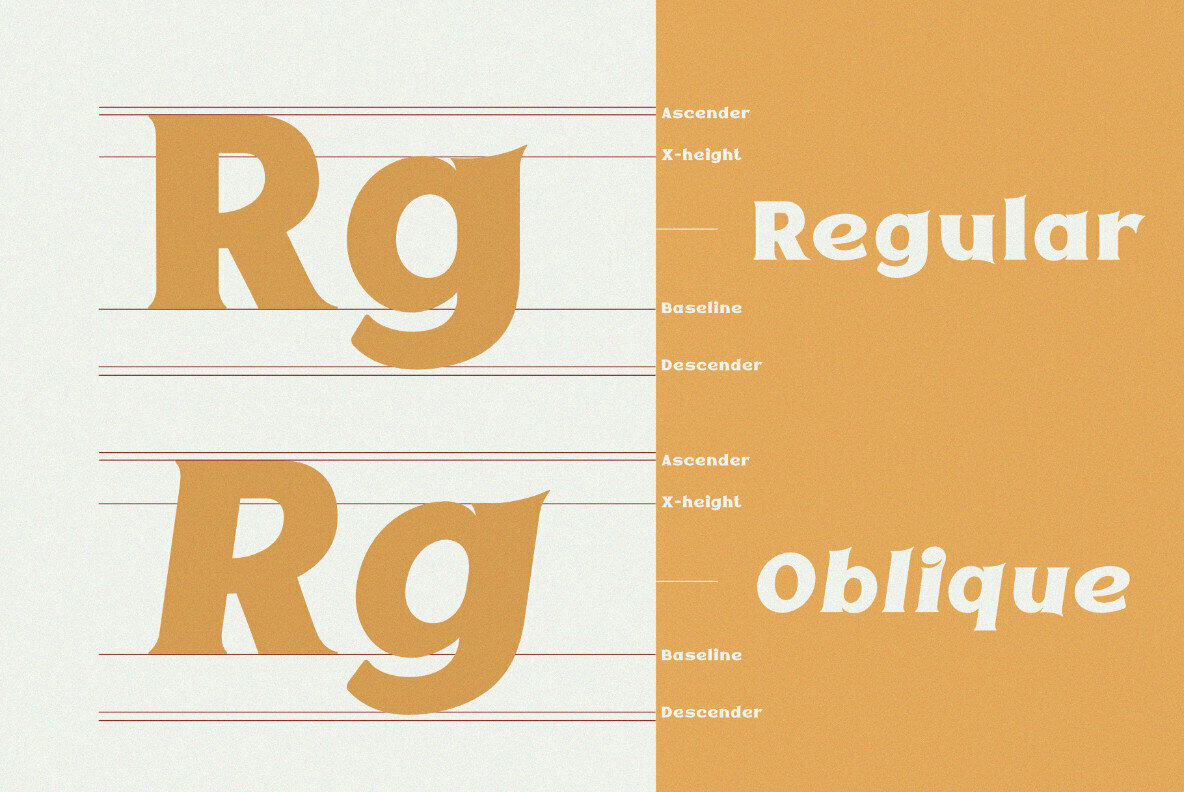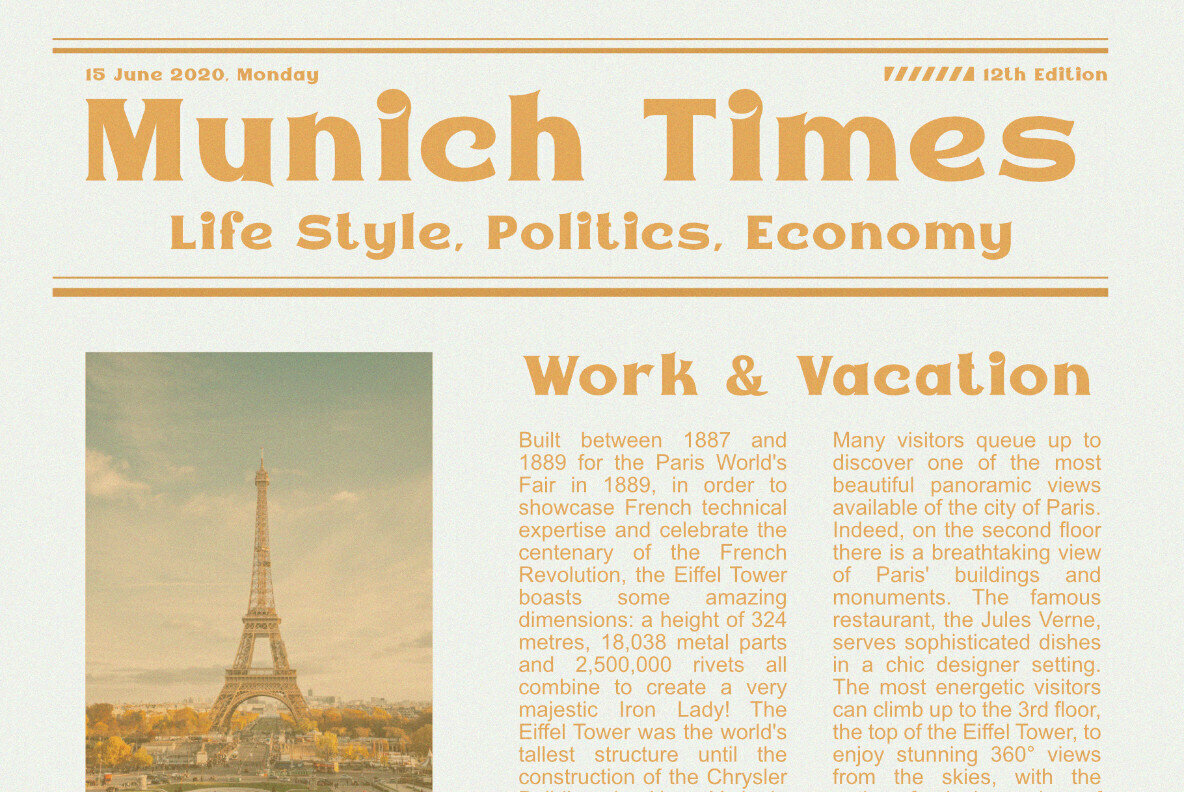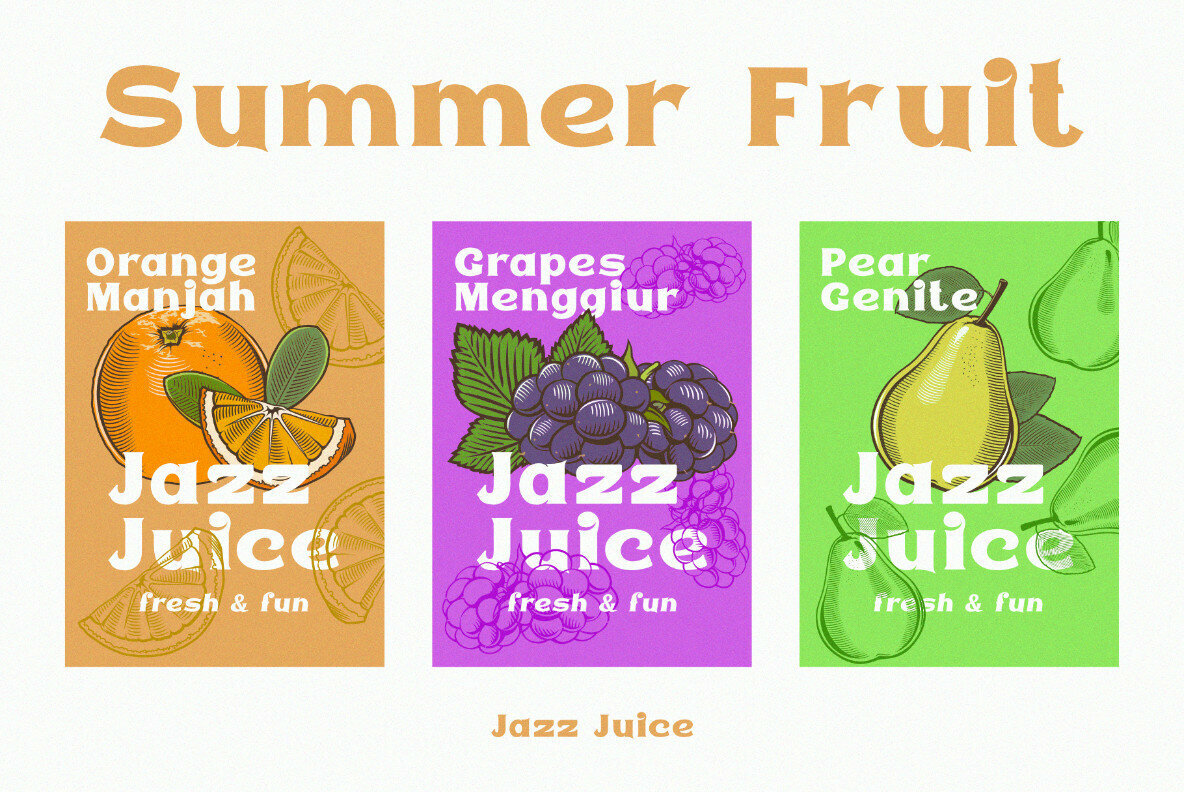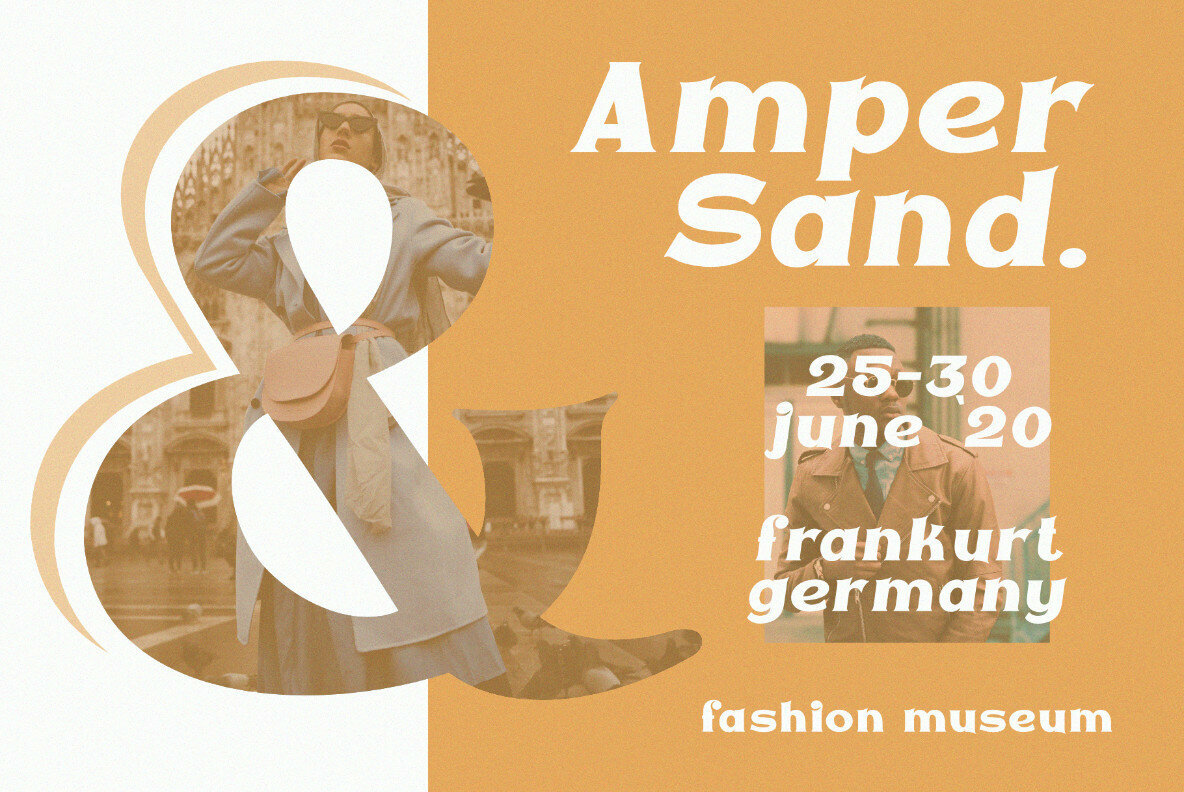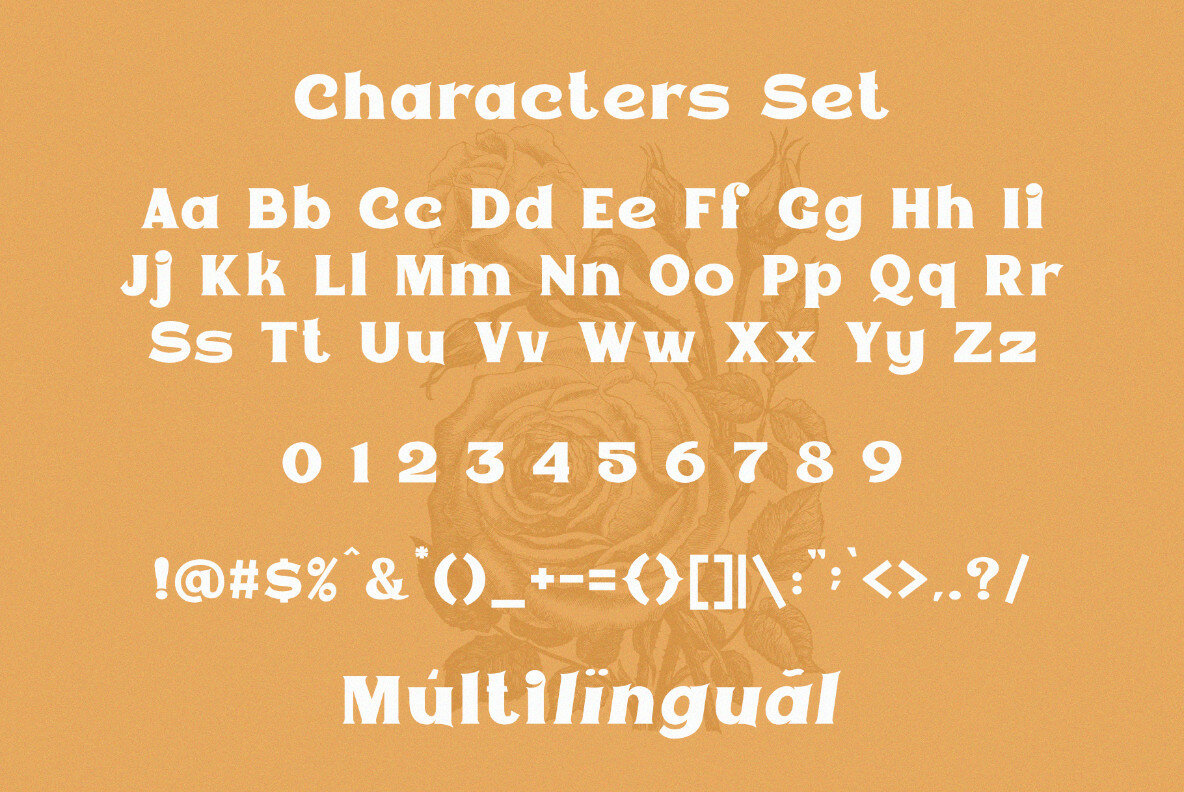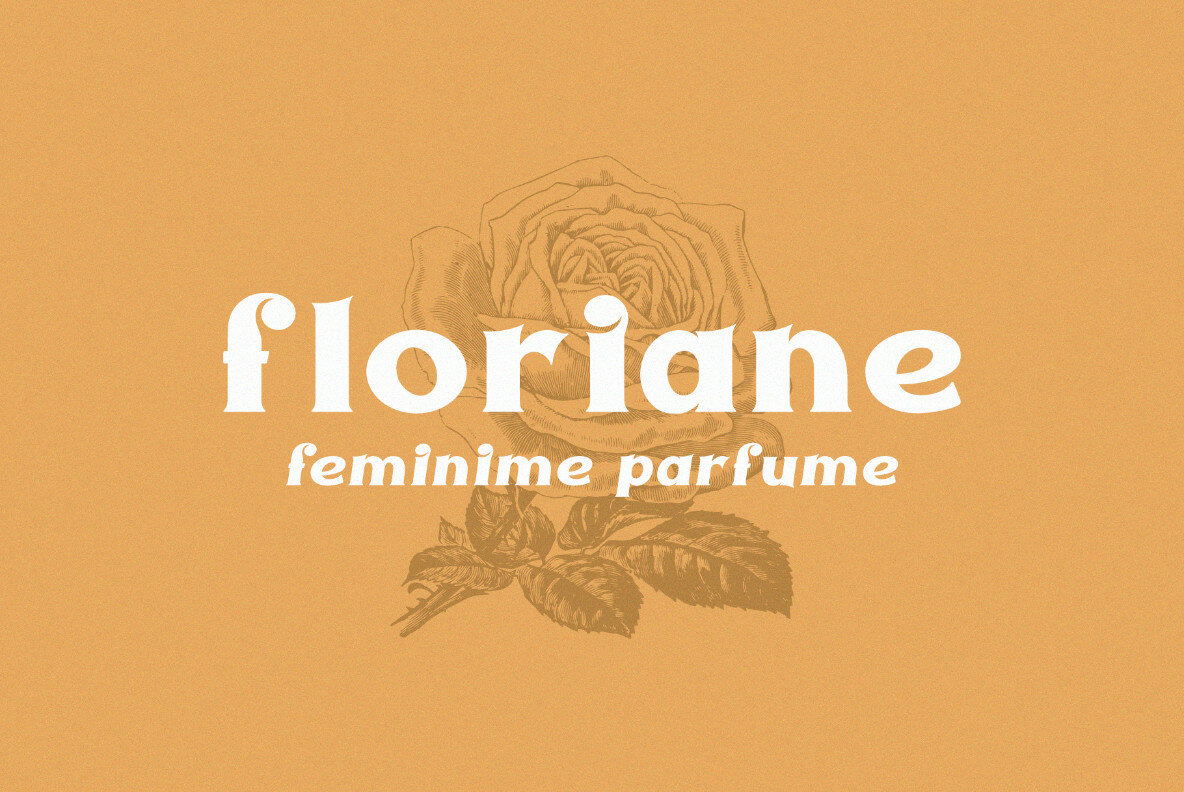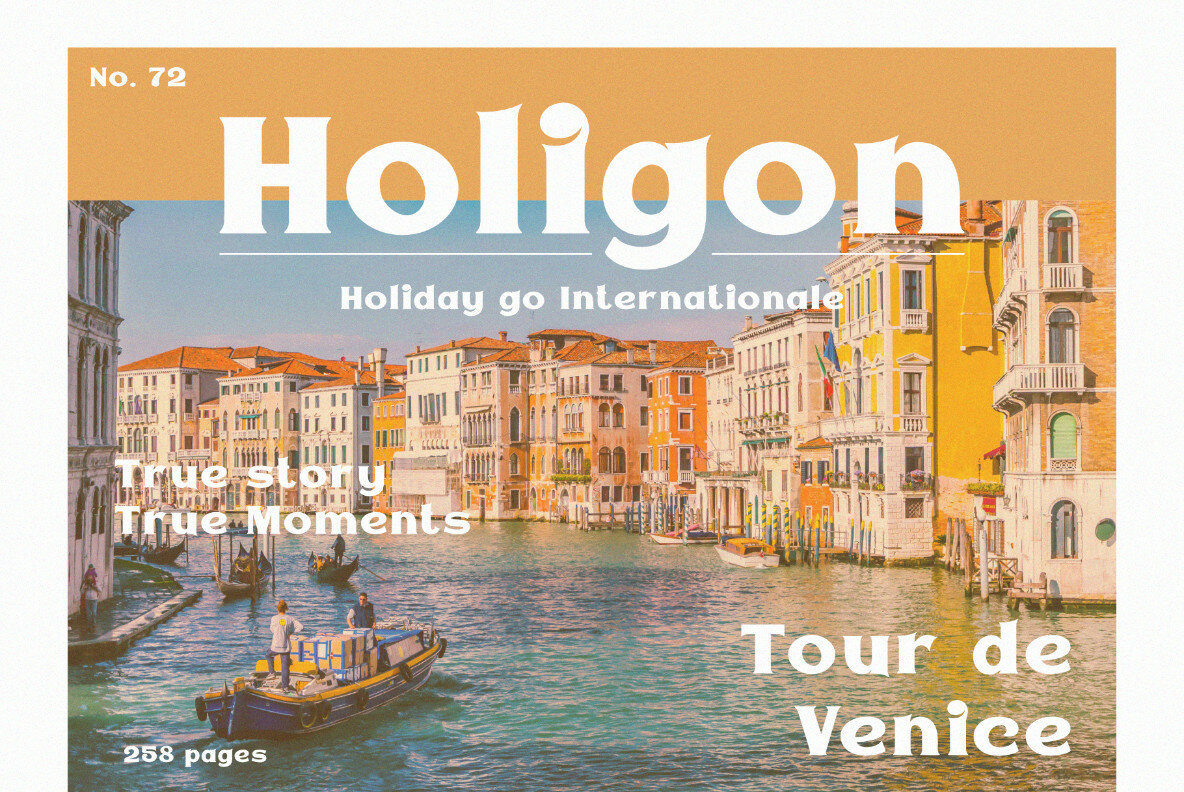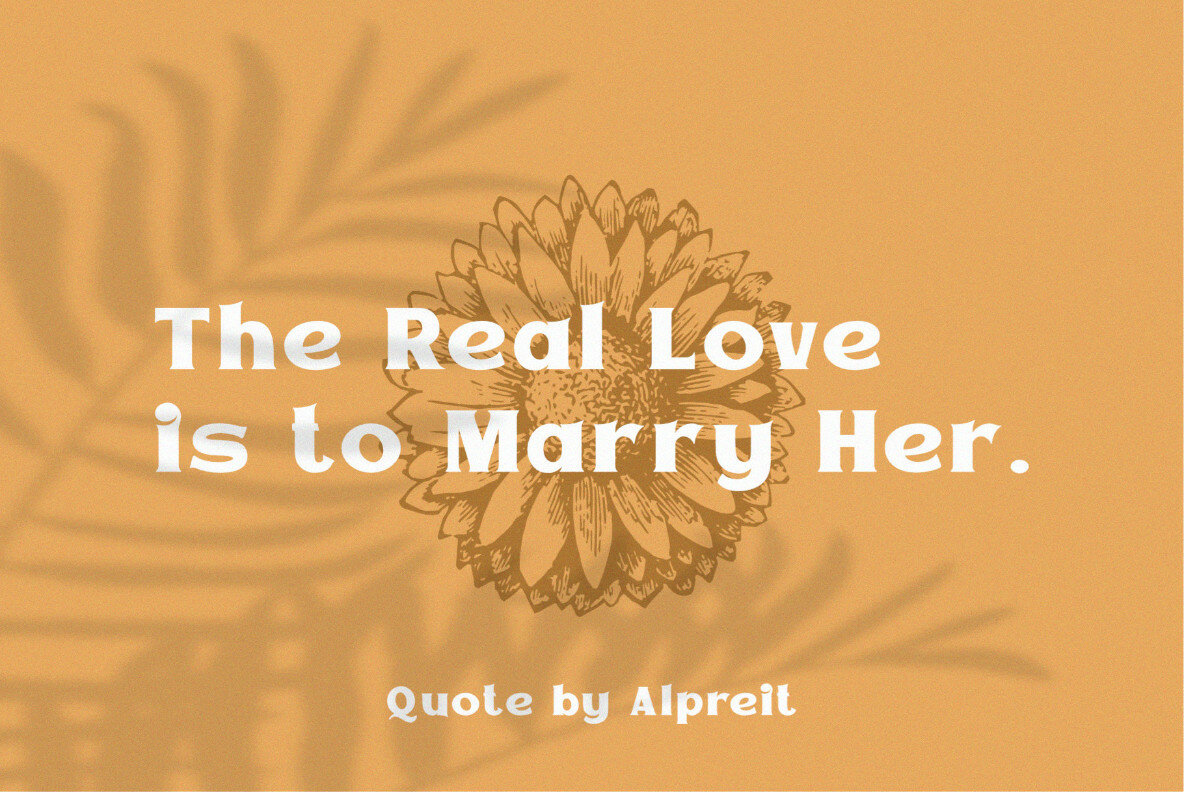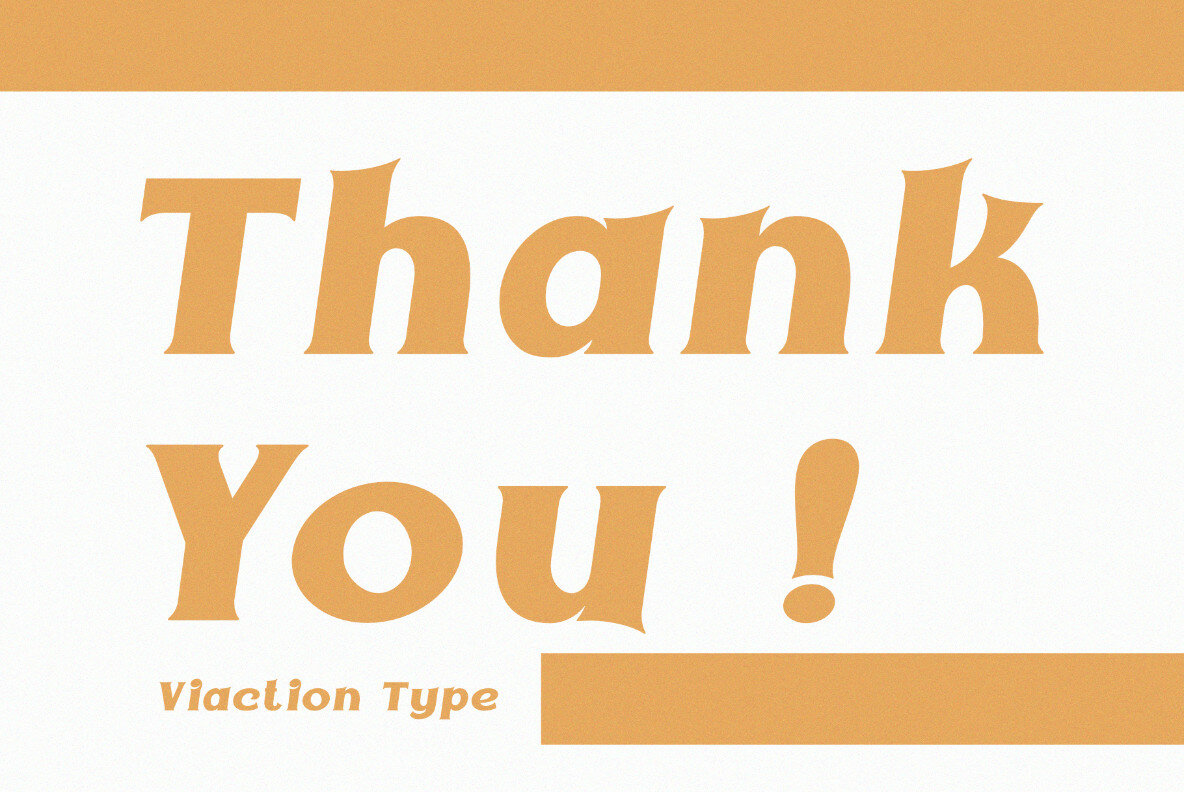
Epicgant Font
Epicgant Regular
Epicgant Oblique
Epicgant captures the essence of refined typographic design with its elegant serif characters. Inspired by themes of sophistication and vintage grace, this font is ideal for projects that require a touch of classical elegance. Whether used for branding, editorial work, or elegant-themed projects, Epicgant seamlessly integrates tradition with modern aesthetics.Epicgant: Elegance in Serif Typography